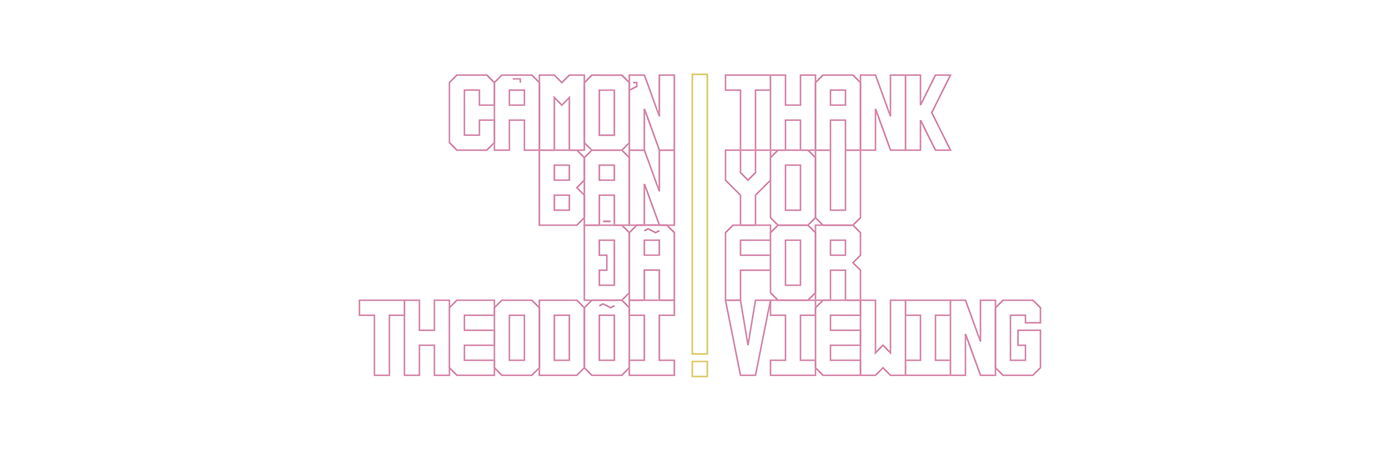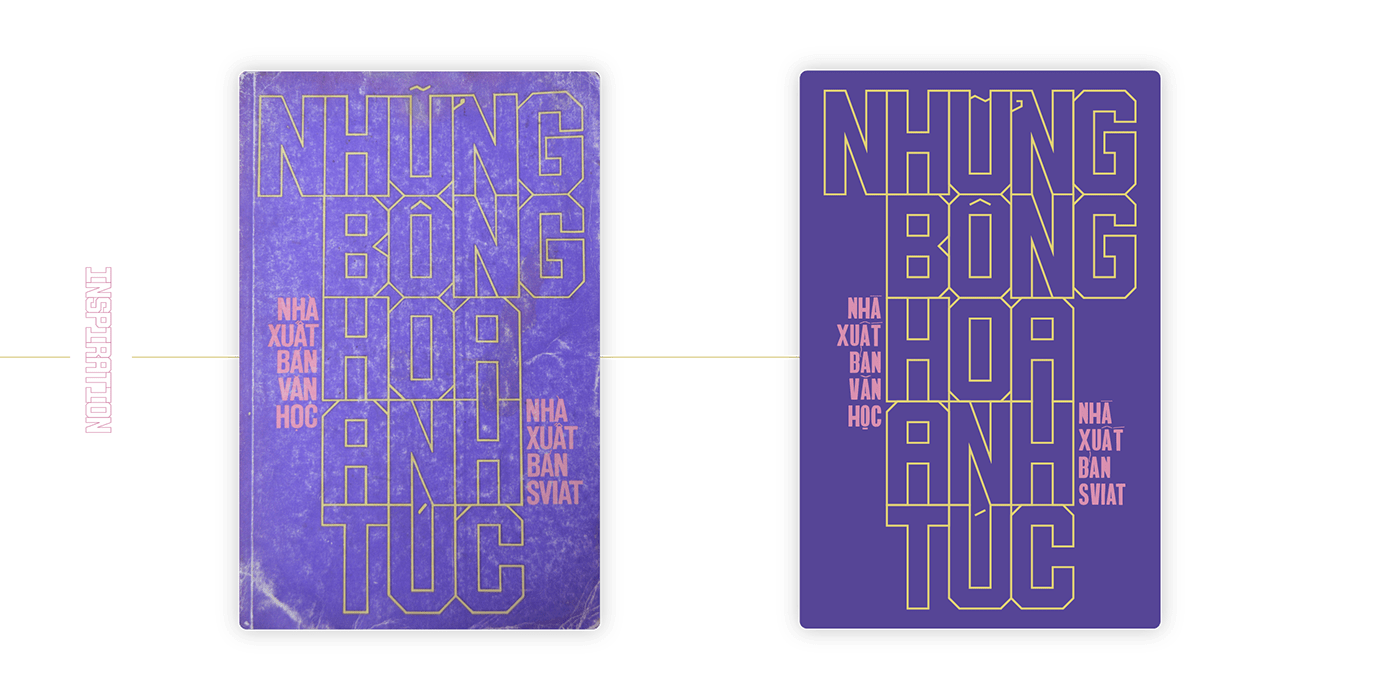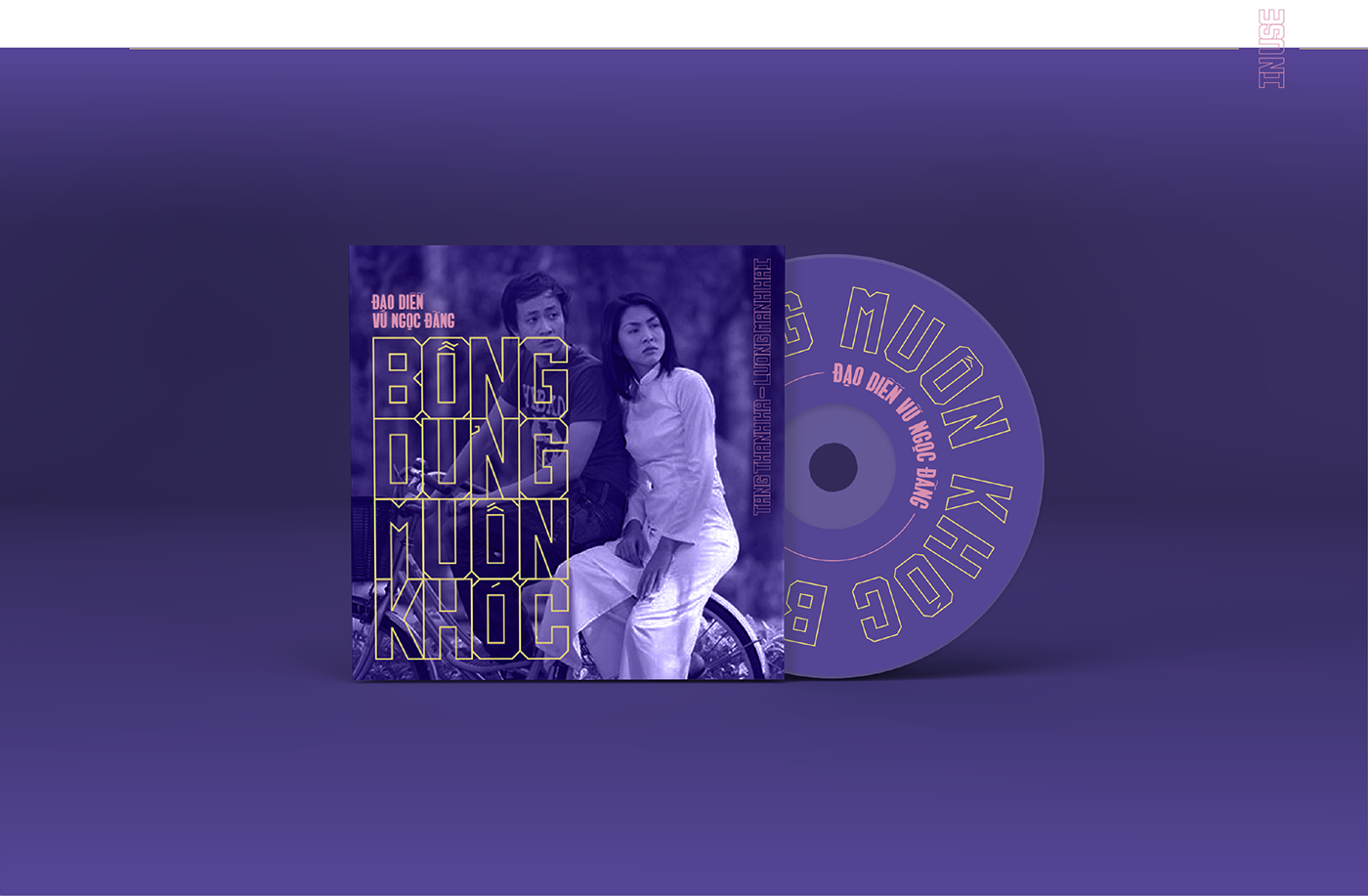
Poppy Flowers Typeface
Introducing Font Poppy Flowers. It is designed and shared by Hiep Tong. Poppy Flowers is also the title of the book. Poppy Flowers typeface has a square shape with thin border and the way to add accents in Vietnamese is wonderful. Poppy Flowers typeface has supported for Vietnamese. It is free for personal use and commercial use if credit.